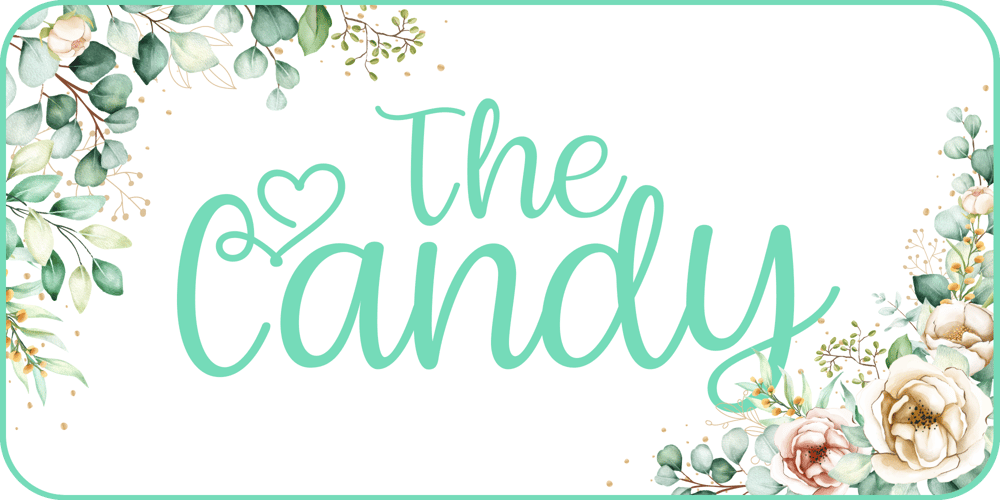
The Candy
The Candy font
The Candy Font Family was designed by Dain Choi and published by DainType. The Candy contains 1 styles and family package options. When the conditions are met, a heart is attached to the capital letter. It feels soft and lovely. It goes well with wedding cards, invitations, elegant brochures, web images, and promotional materials. If you do not apply the open type feature, the letters without hearts are applied, so you can use it in two moods.